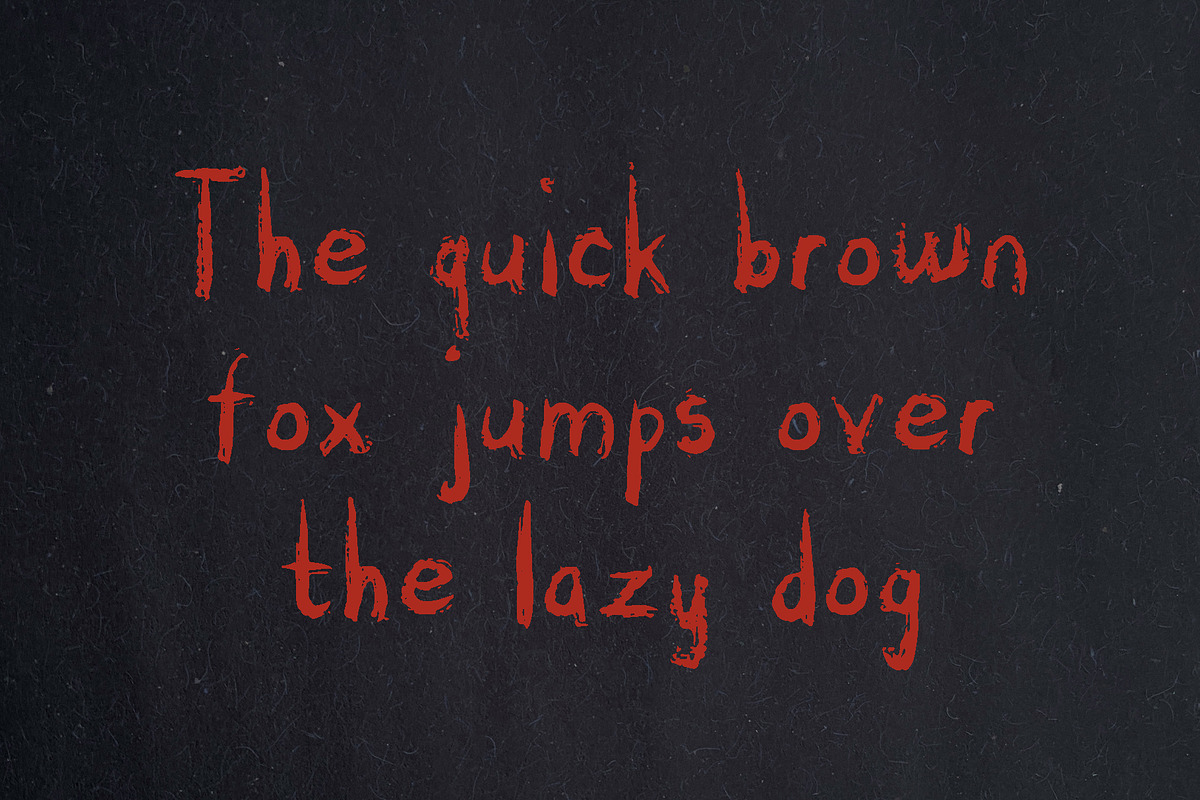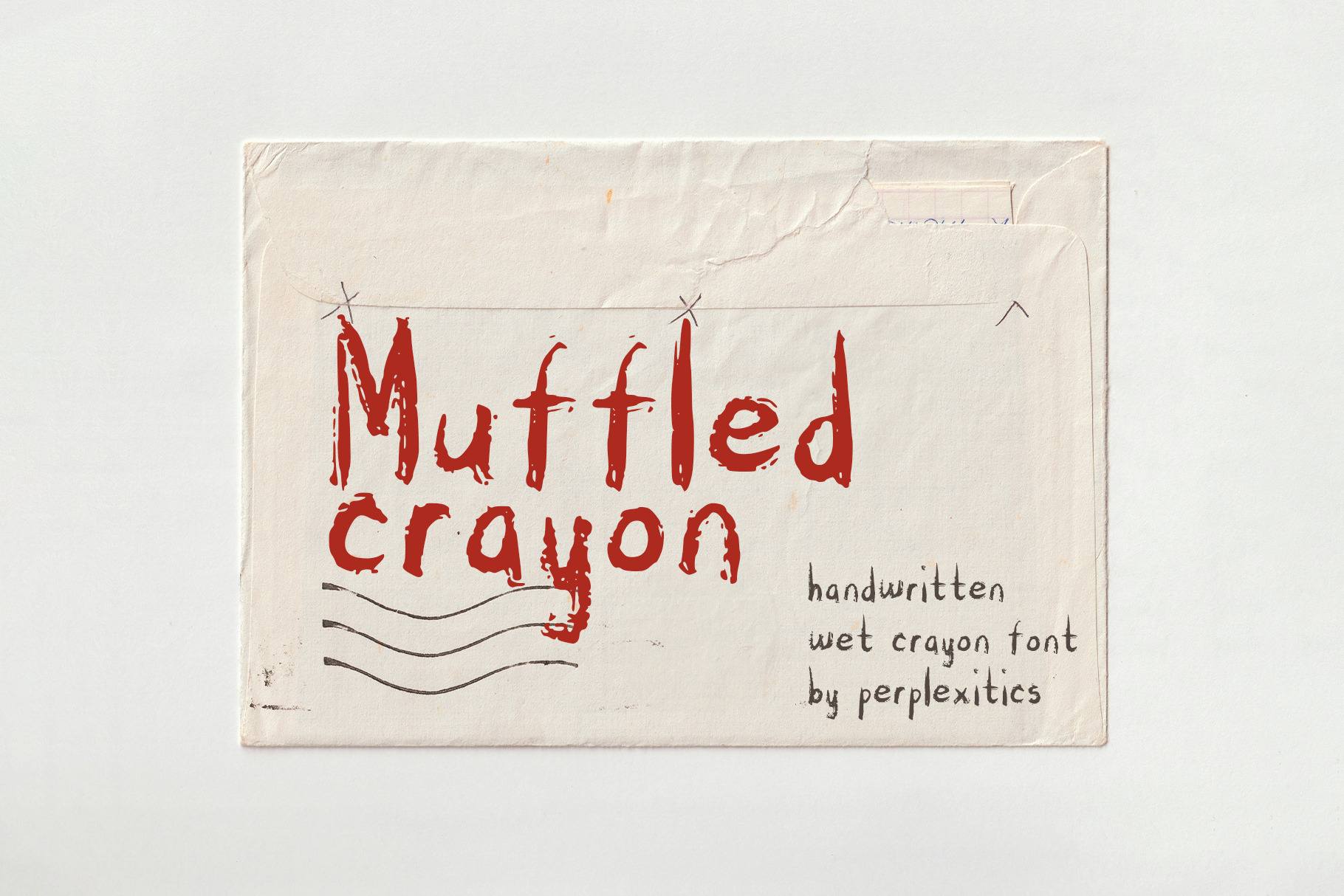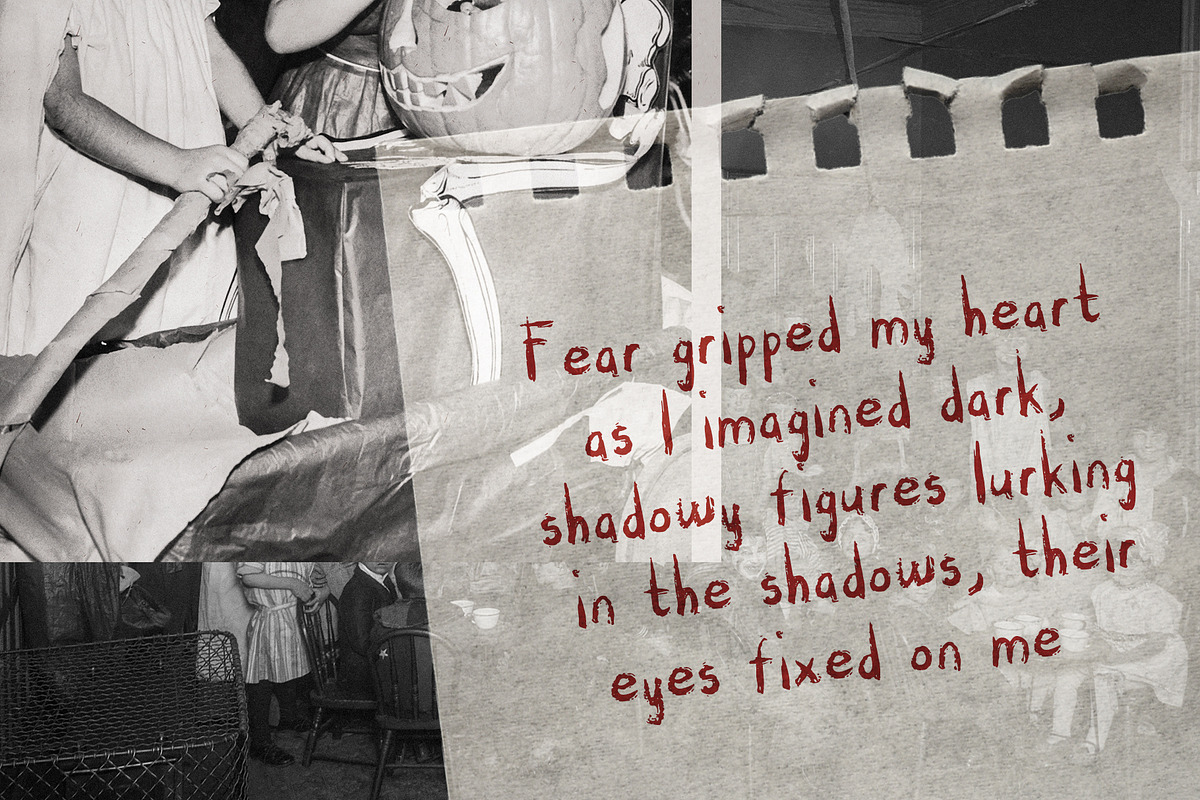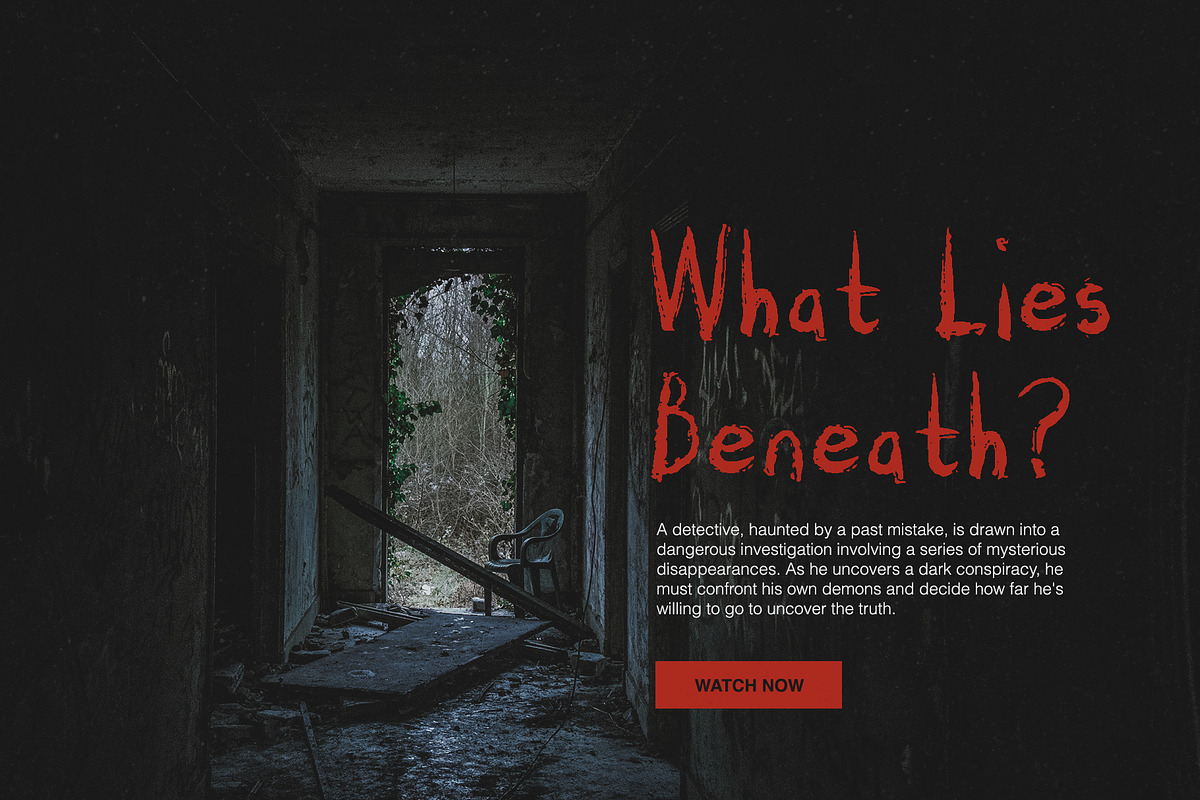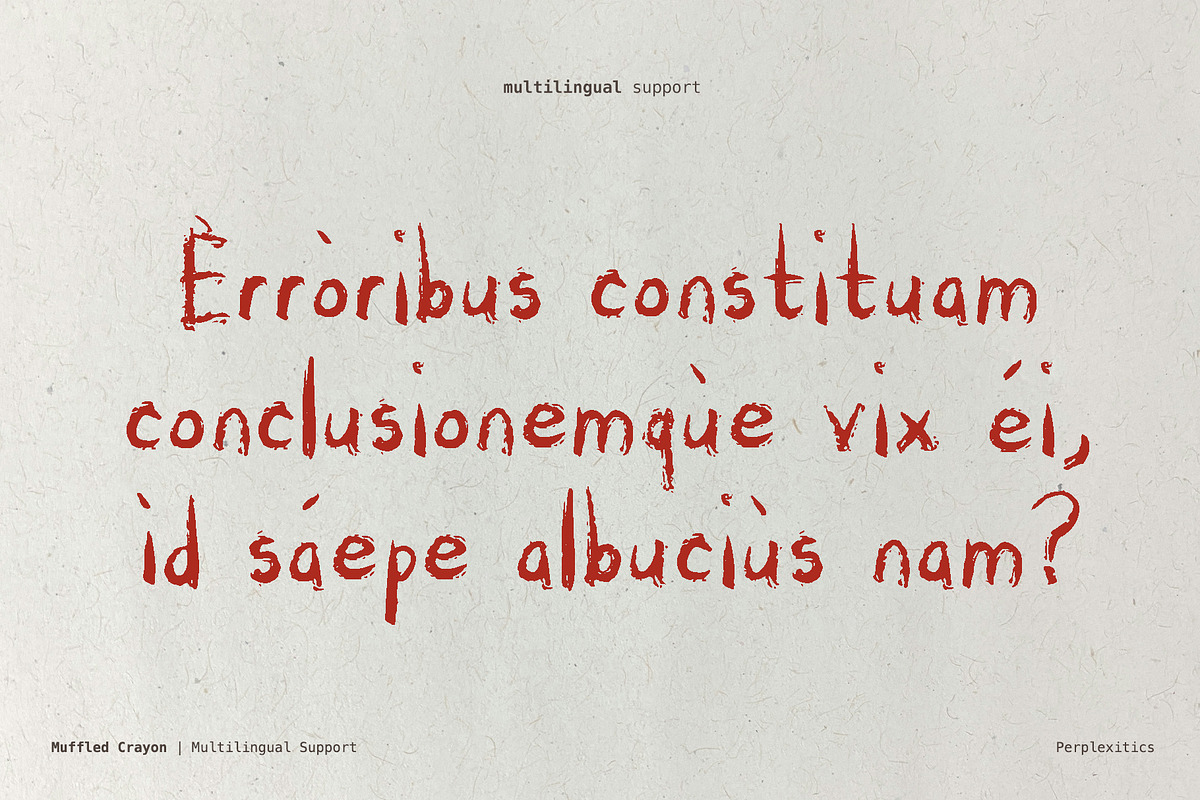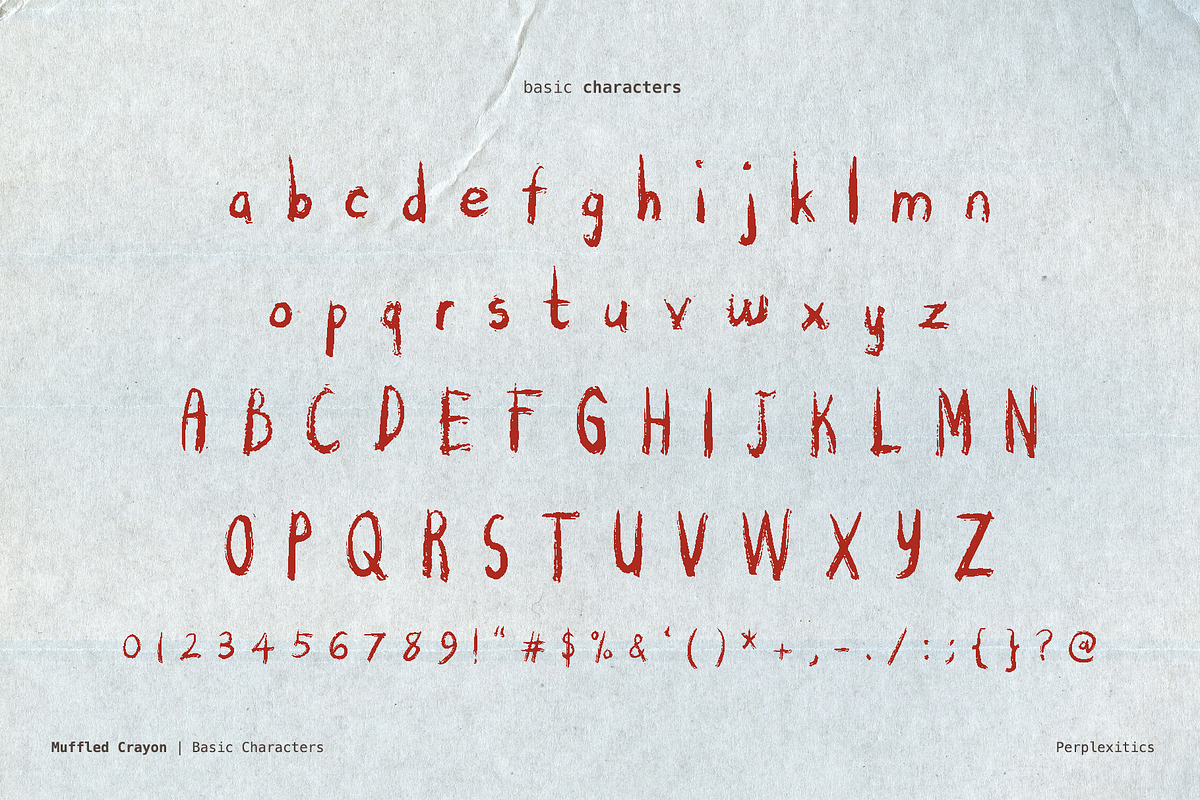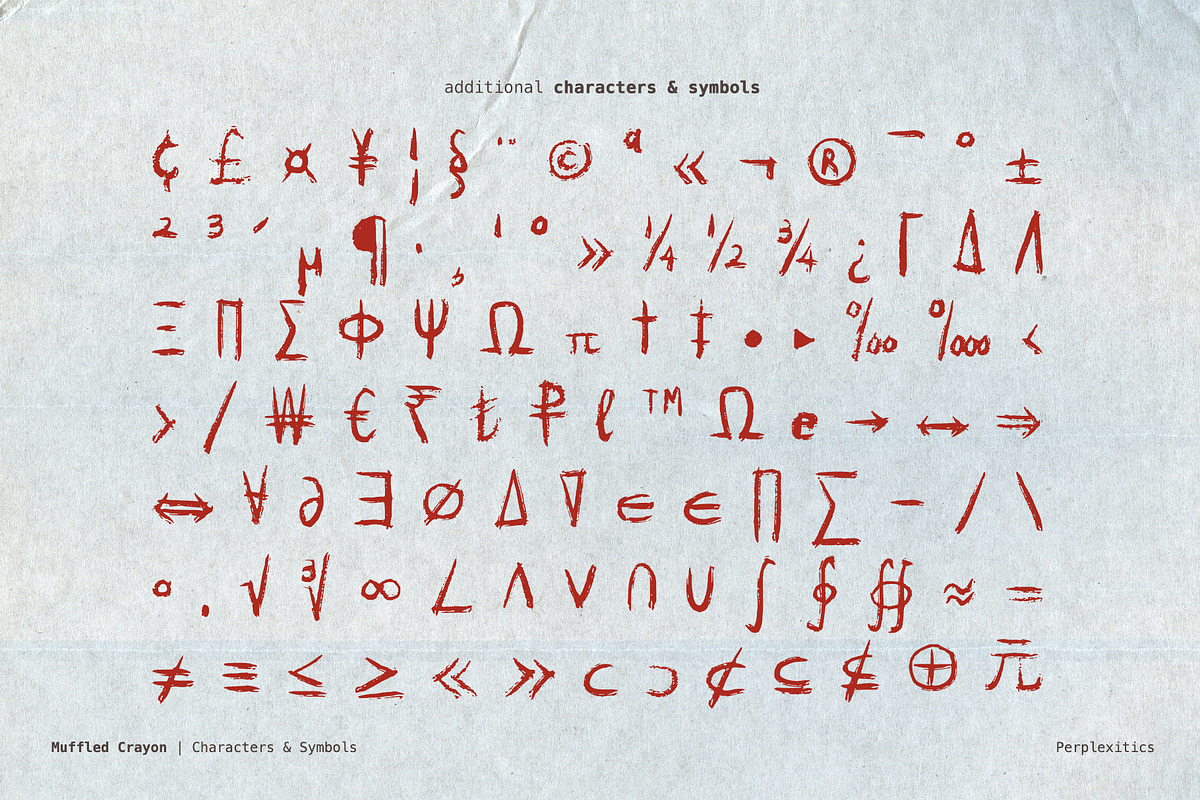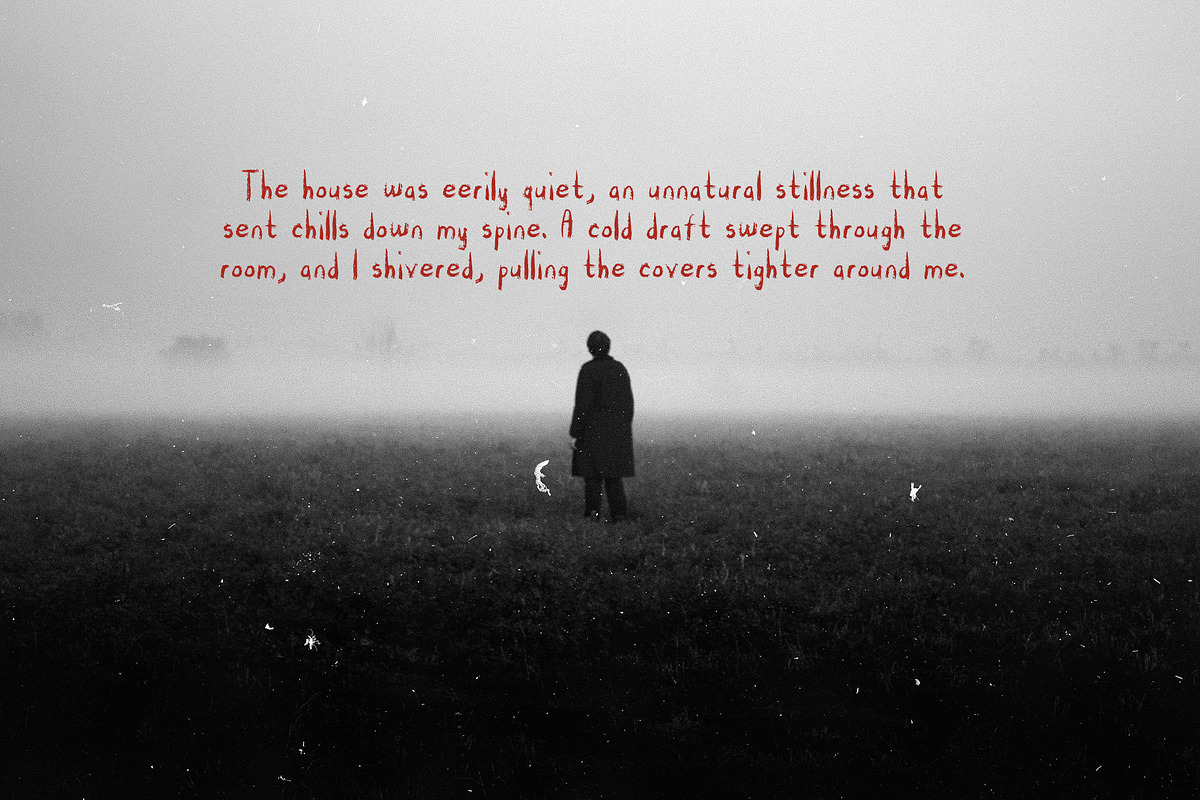
Muffled Crayon Handwritten Font
Muffled Crayon is a whimsical and spooky font that blends the cute and creepy. Its rounded letters and playful curves give it a friendly appearance, while the jagged edges and eerie details add a touch of horror.
Muffled Crayon Font is packed with everything you need, including uppercase and lowercase letters, numbers, and punctuation. Multilingual support.